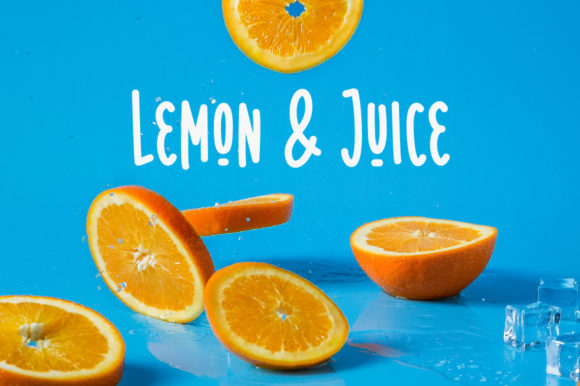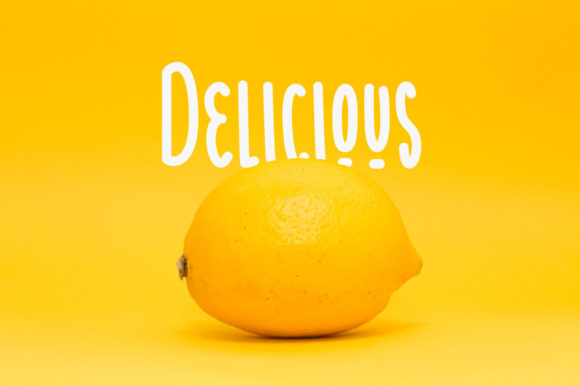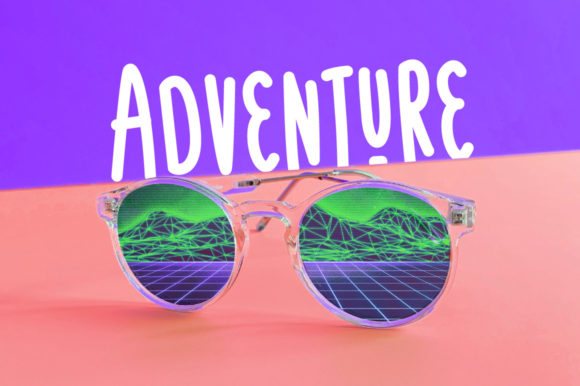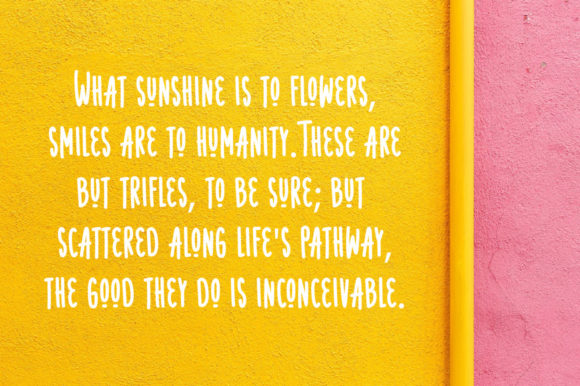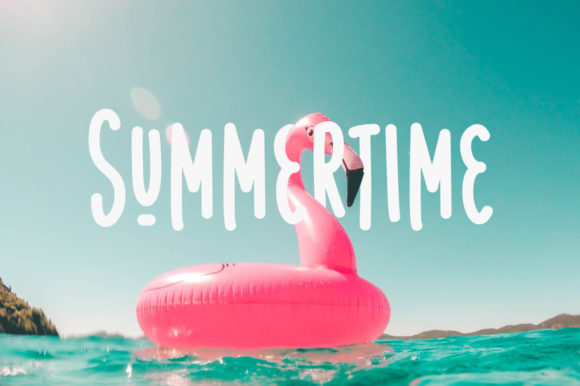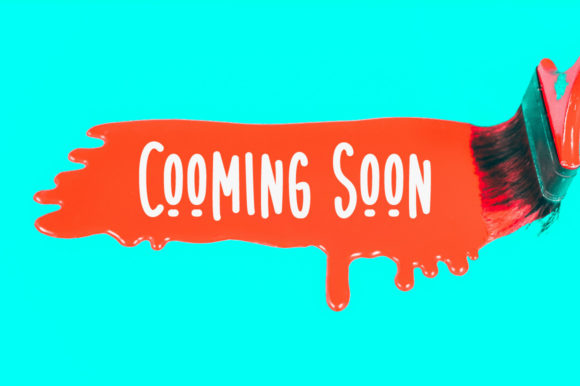
Introduction to Nonplussed Font
As a designer, there’s nothing quite like the thrill of a creative project taking off – the rush of ideas, the excitement of bringing a concept to life, and the satisfaction of seeing your work make a real impact. But, let’s face it, sometimes it’s the little things that can make all the difference. A unique headline, a clever logotype, or a striking font can elevate your design from good to great. That’s where the Nonplussed Font comes in – a casual and playful display font that’s perfect for designers looking to add a little extra oomph to their work.
About the Nonplussed Font
With its high-quality design and transparent background, the Nonplussed Font is a valuable resource for designers of all levels. Whether you’re working on a free download project or a paid client, this font is sure to impress. Its versatility makes it perfect for everything from branding and packaging to advertising and apparel designs.
Why Choose the Nonplussed Font?
So, what sets the Nonplussed Font apart from other design fonts? For starters, its unique style and high-quality design make it a standout choice for any creative project. Plus, with its transparent background, you can easily customize it to fit your needs. Whether you’re a seasoned pro or just starting out, the Nonplussed Font is a great addition to your design arsenal.
Key Features of Nonplussed Font
- High-quality design resource with a unique, creative style, perfect for a wide range of projects.
- Transparent background allows for seamless integration into any design, making it ideal for creative projects.
- Designed with precision, the font comes in a range of sizes, from 8pt to 1000pt, ensuring versatility in any design application.
- With a resolution of 300 DPI, the font is suitable for both digital and print projects, including posters, flyers, and business cards.
- Unique characteristics include its modern, bold aesthetic and extensive character set, making it an excellent choice for designers seeking a distinctive look.
Honest Review: Nonplussed Font
I recently stumbled upon the Nonplussed Font, and I must say it’s a solid addition to any designer’s toolkit. As a design resource, it offers a unique blend of modern and vintage flair that can elevate a creative project.
One of the standout features of the Nonplussed Font is its high quality. The typography is crisp and clean, making it perfect for a variety of applications. Additionally, the transparent background option provides an added layer of flexibility, allowing designers to easily integrate the font into their design.
Here are some of the things that work well with the Nonplussed Font:
- ✨ Unique blend of modern and vintage flair
- ✨ High-quality typography
- ✨ Transparent background option
- ✨ Versatile and suitable for various design applications
- ⚠️ Limited character set (although this can be a plus for those looking for a specific aesthetic)
- ⚠️ May require some tweaking to achieve optimal results in certain design applications
Overall, the Nonplussed Font is a solid choice for designers seeking a unique and high-quality font for their creative projects. While it may not be perfect, its strengths outweigh its limitations, making it a worthwhile download.
Tips for Getting the Most Out of Nonplussed Font
For the best results, use Nonplussed Font on a transparent background to create a clean and minimalist look. You can also combine it with other high-quality fonts to add depth and visual interest to your design.
Nonplussed Font is perfect for creative projects, such as logos, brochures, and social media graphics. Its unique style and high-quality design make it an excellent choice for designers looking to add a touch of sophistication to their work.